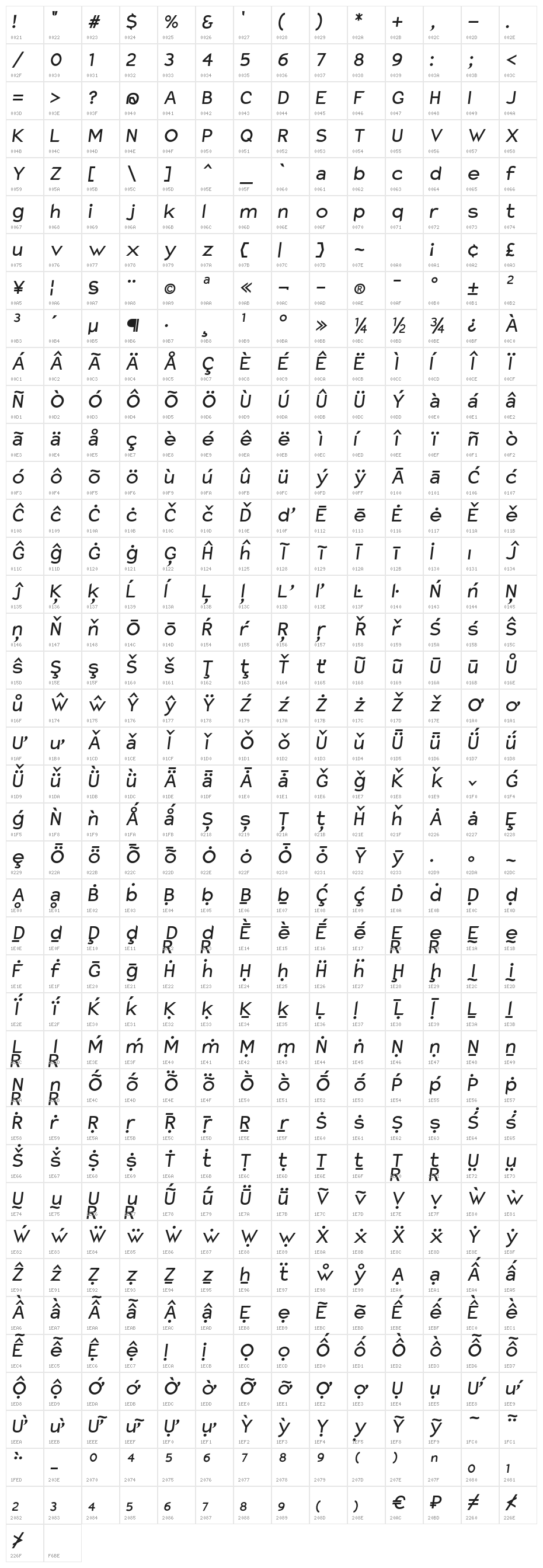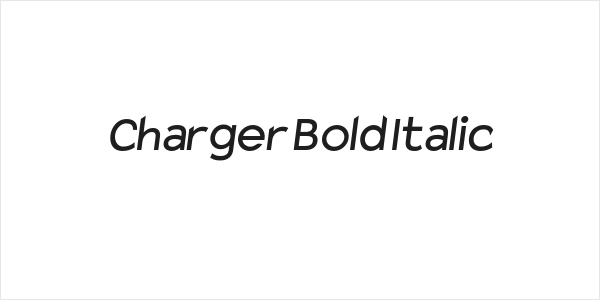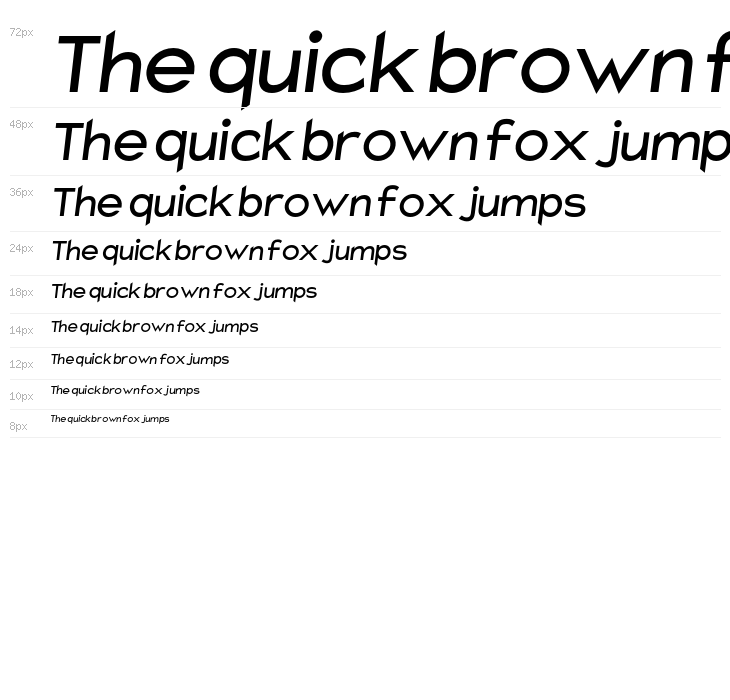
Charger Bold Italic Font
Charger Bold Italic Description
This font features a bold and italicized style, characterized by its strong, dynamic slant and thick strokes. The letters are well-defined with a modern, sans-serif appearance, offering a clean and professional look. The uppercase and lowercase letters maintain a consistent style, with the italic angle adding a sense of movement and urgency. The numerals are clear and legible, matching the boldness of the alphabet characters. Special characters are included, maintaining the same stylistic features, making this font versatile for various applications.